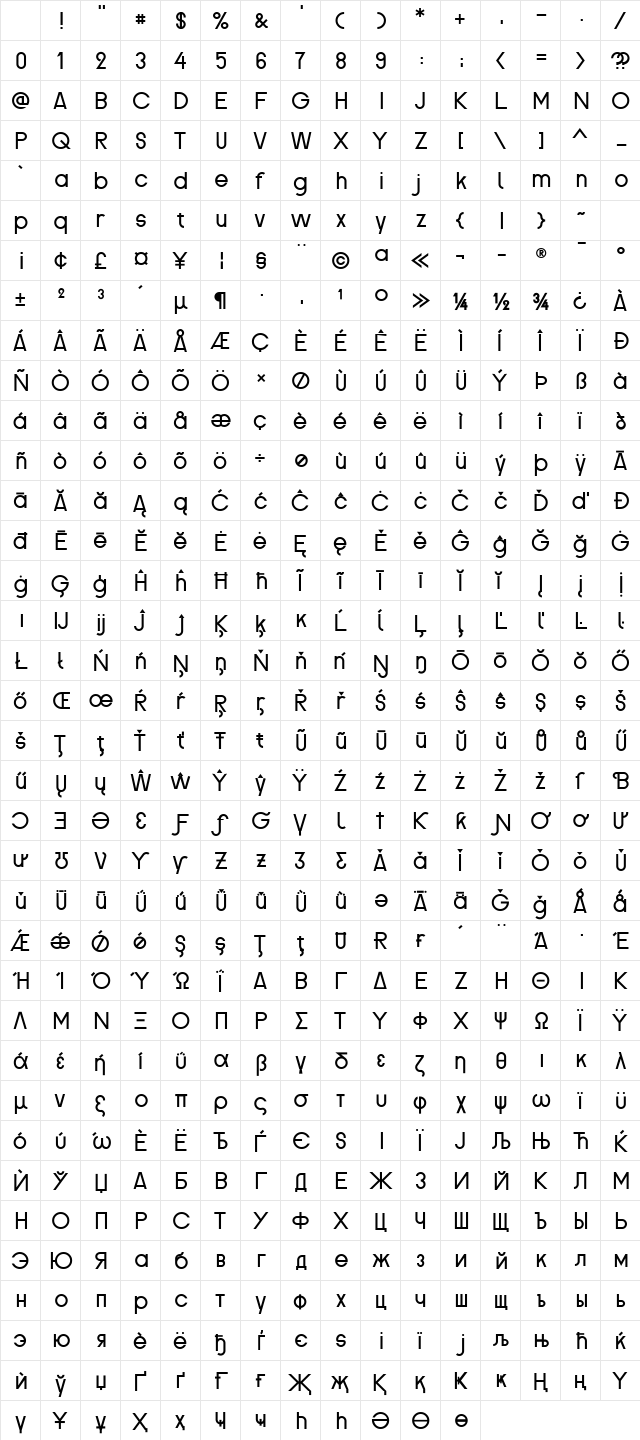
Complete Proletarsk Regular glyph index. Displaying only characters natively supported by Proletarsk Regular font.
Proletarsk is a composed and adaptable typeface that performs quietly and consistently across a wide range of design contexts.